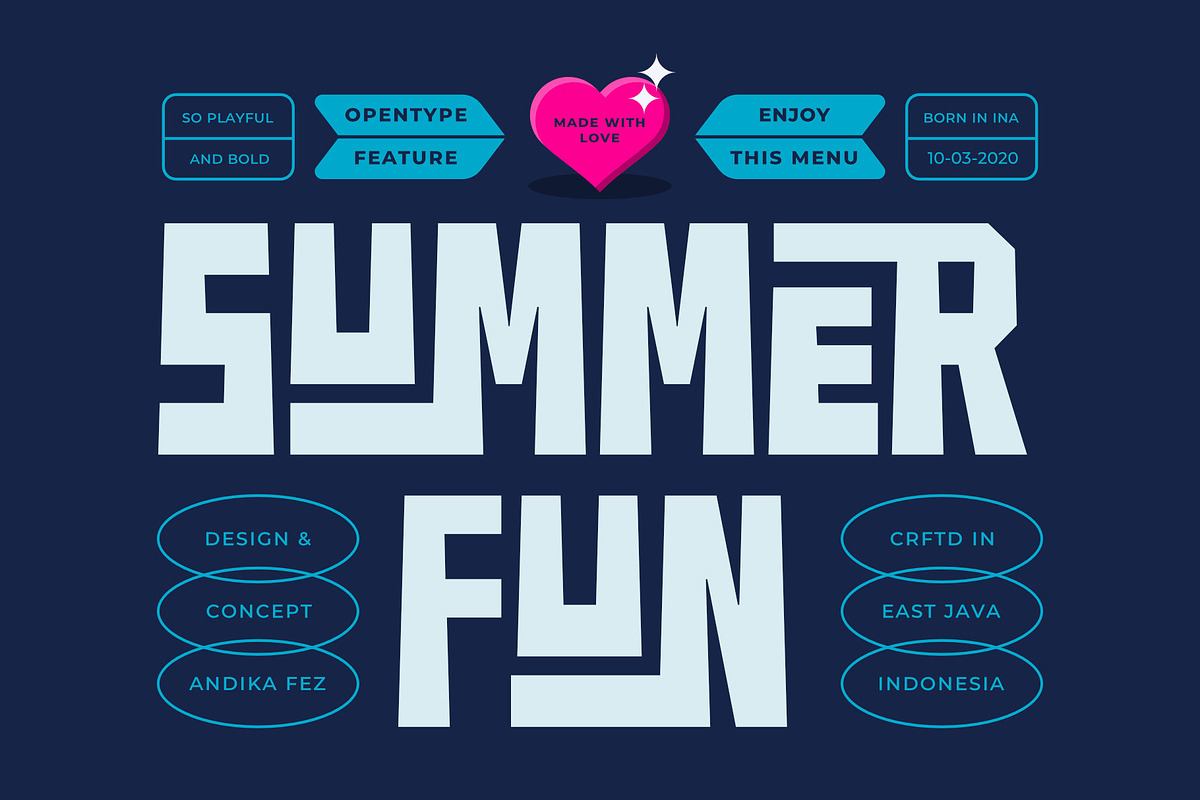
Summer Fun Font Free Download is a bright and cheerful display typeface that captures the playful spirit of sunny days, beach vibes, and vacation adventures. With its bold shapes and lively character, this font is perfect for summer party invitations, travel blogs, kids' designs, swimwear branding, and colorful social media posts.
Designed to spread smiles and sunshine, Summer Fun adds a splash of joy to every project. Its readability and fun-loving style make it great for both digital and print use. Summer Fun Font Free Download allows you to experiment with its warm, carefree feel in personal projects before purchasing a commercial license.
Celebrate the season with Summer Fun — the font that brings sunshine, happiness, and a touch of beachy magic to your designs.